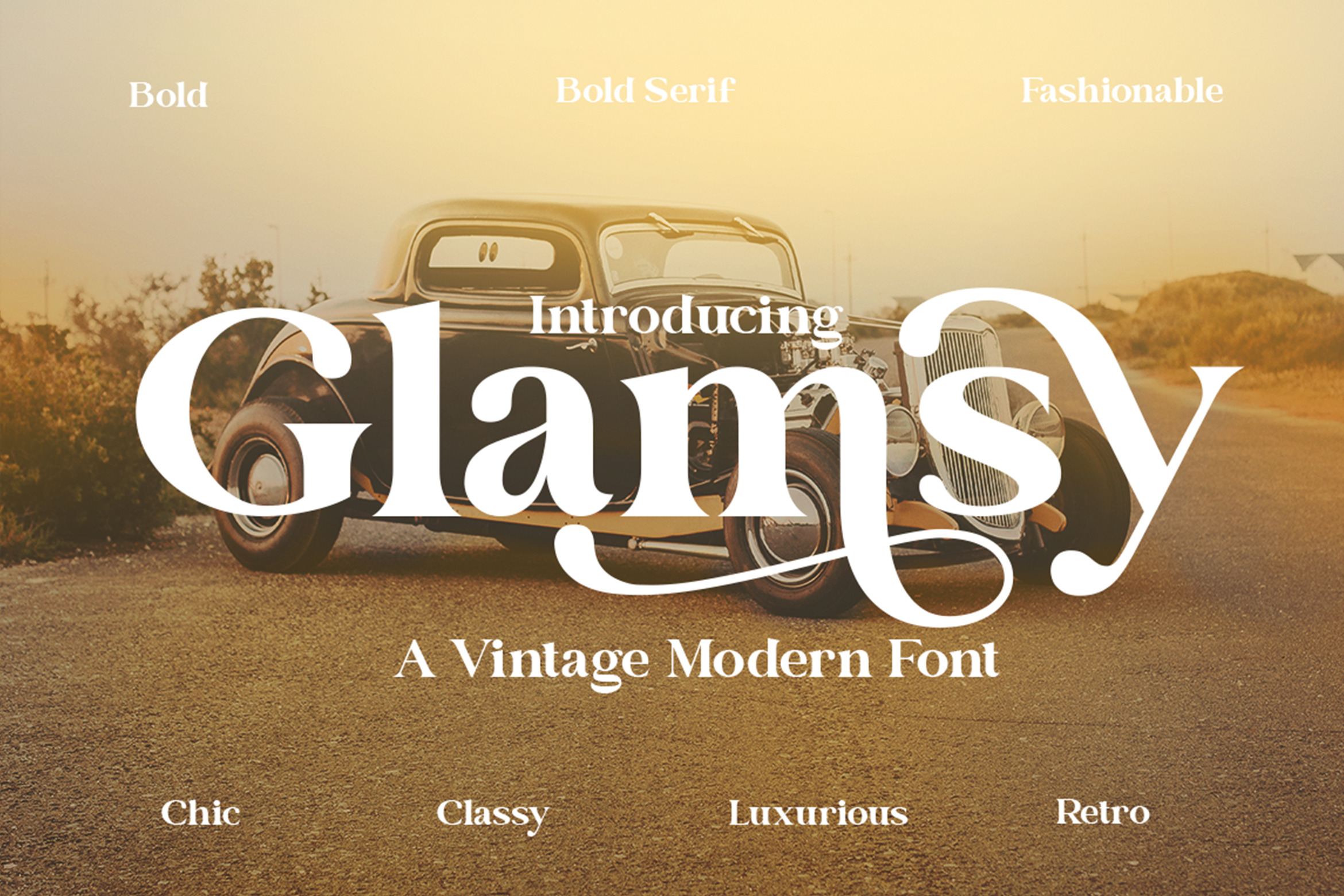
Wish to give your design that vintage and classy look? Great fonts inspire emotion, and choosing the right one will push your brand in the right direction.
Introducing Glamsy- A Vintage Modern Font.
From merch and printed materials to websites and social media campaigns, Glamsy is ready for any project. Try it out and see the impact that a chic font can make.
- Multilingual & Ligature Support
- Full sets of Punctuation and Numerals